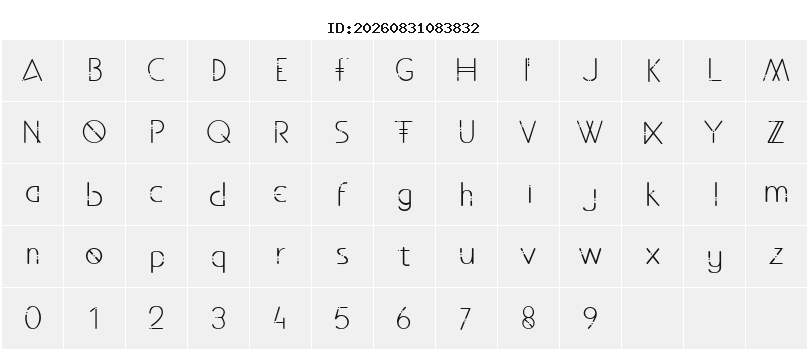
Telekinesis Preview
About Telekinesis.ttf
Telekinesis.ttf is a modern, elegant sans-serif font designed for ultimate readability and visual harmony. Perfect for branding, headlines, web design, and print materials.